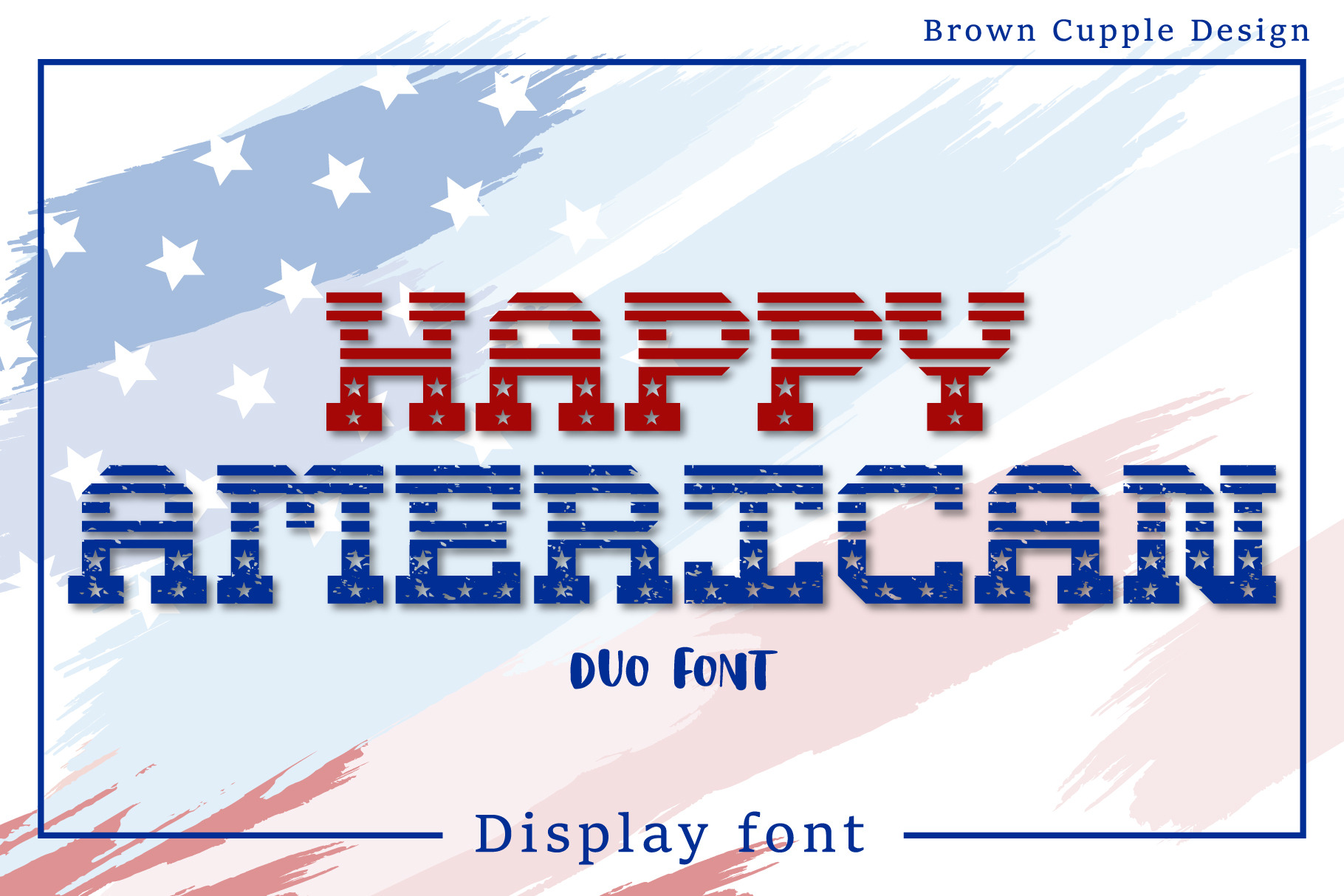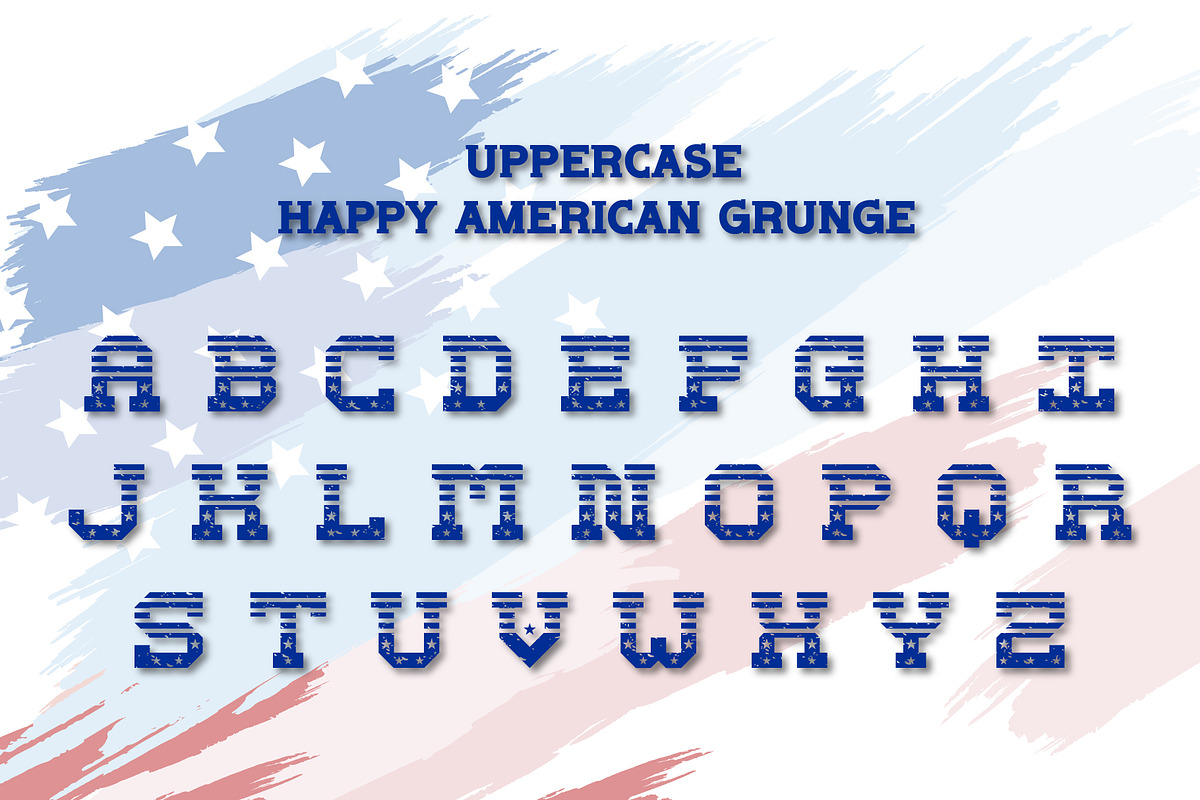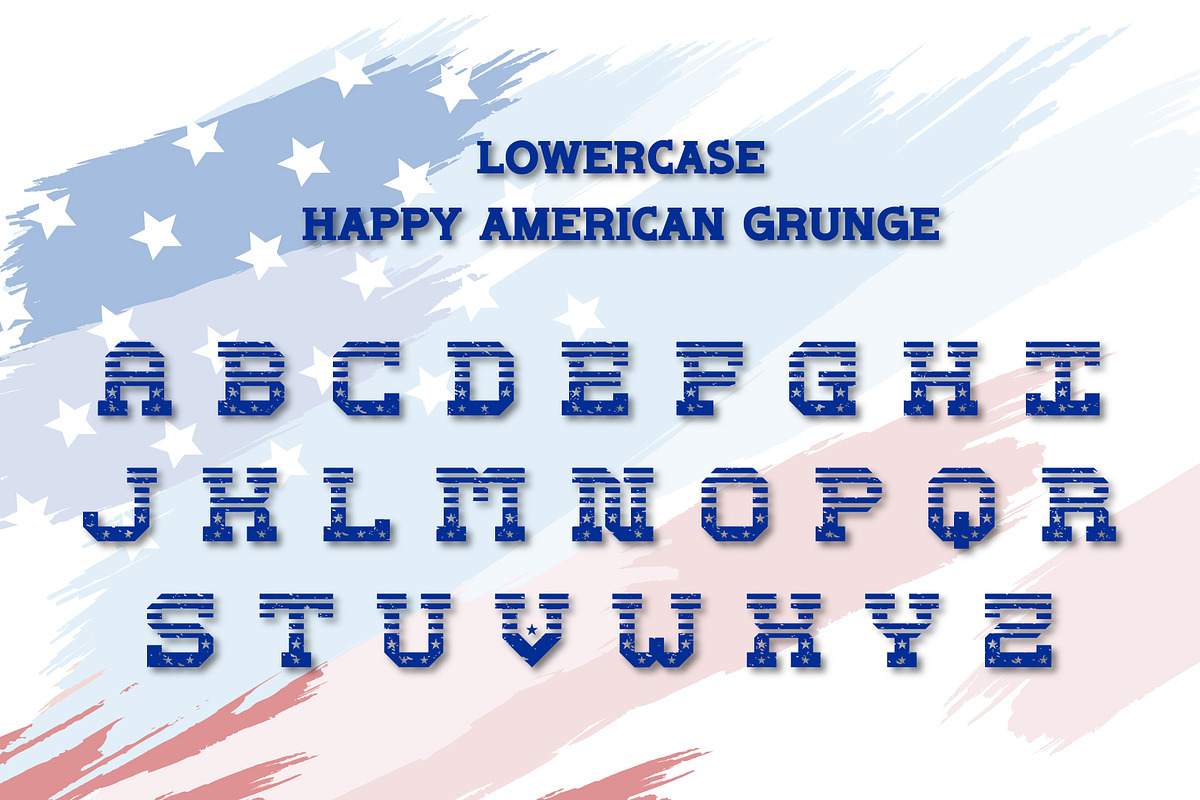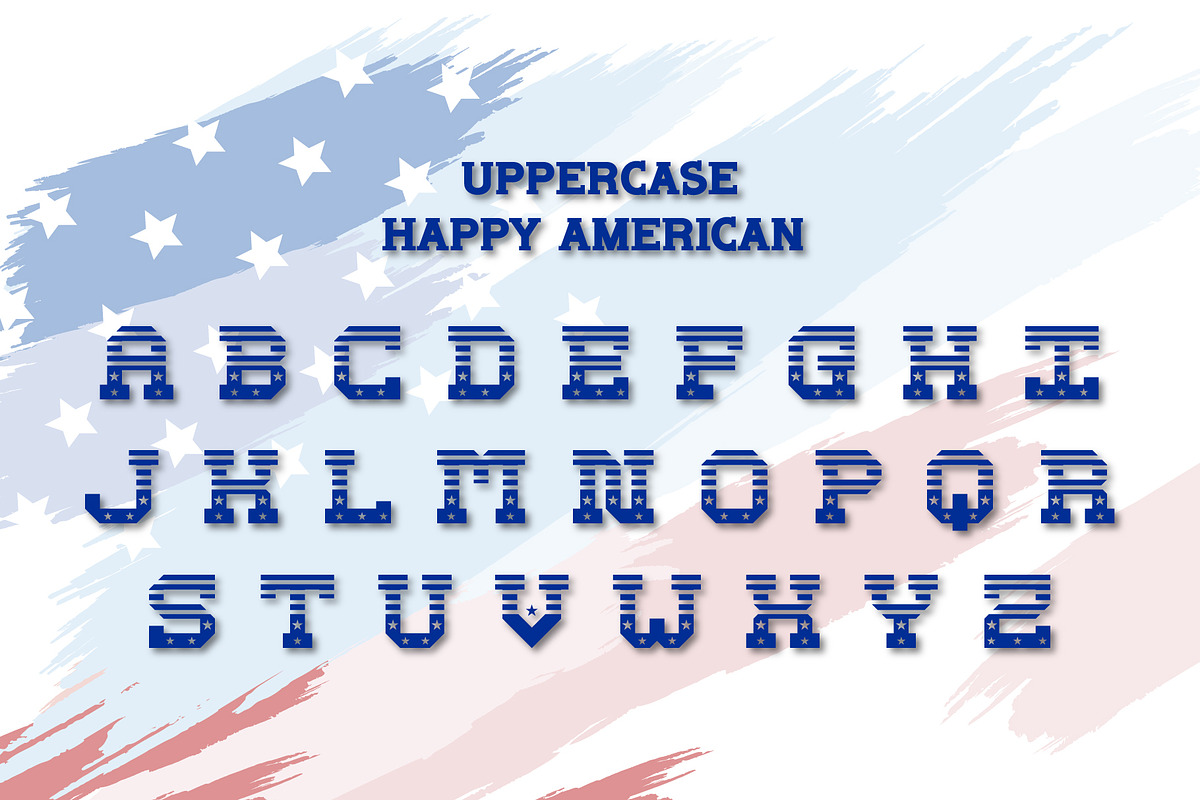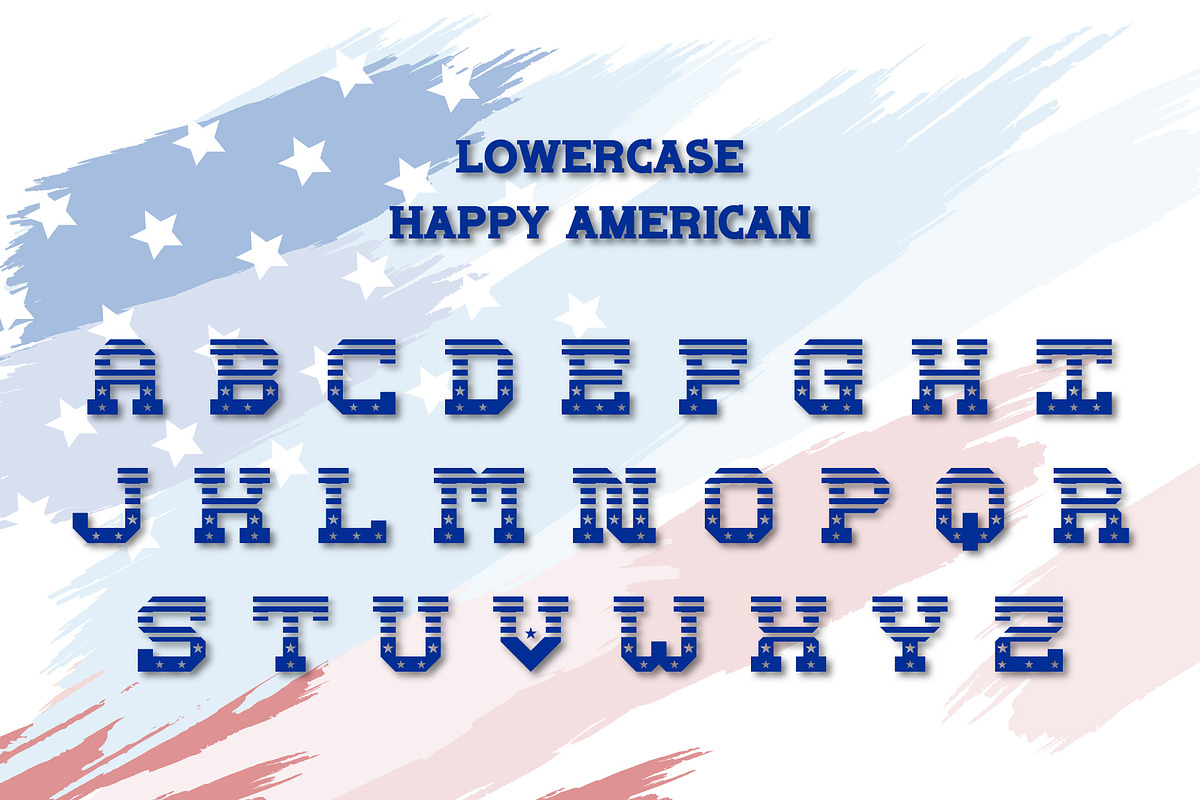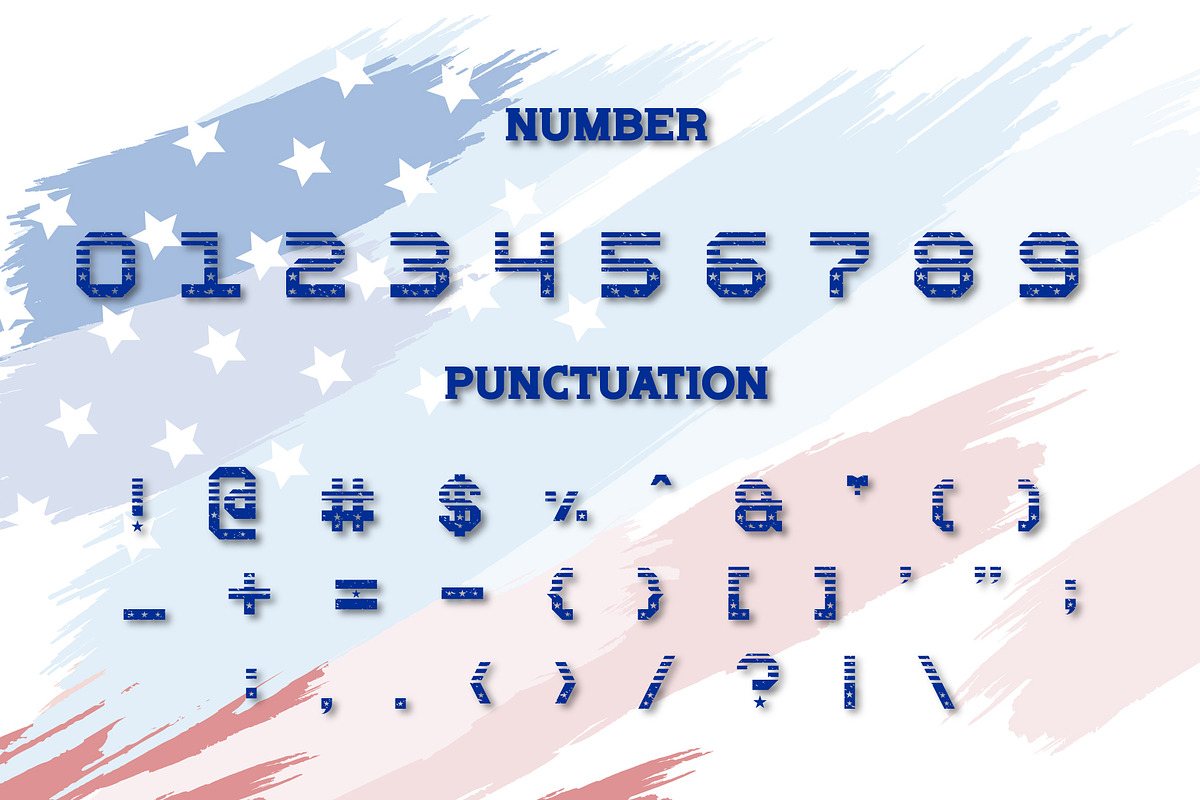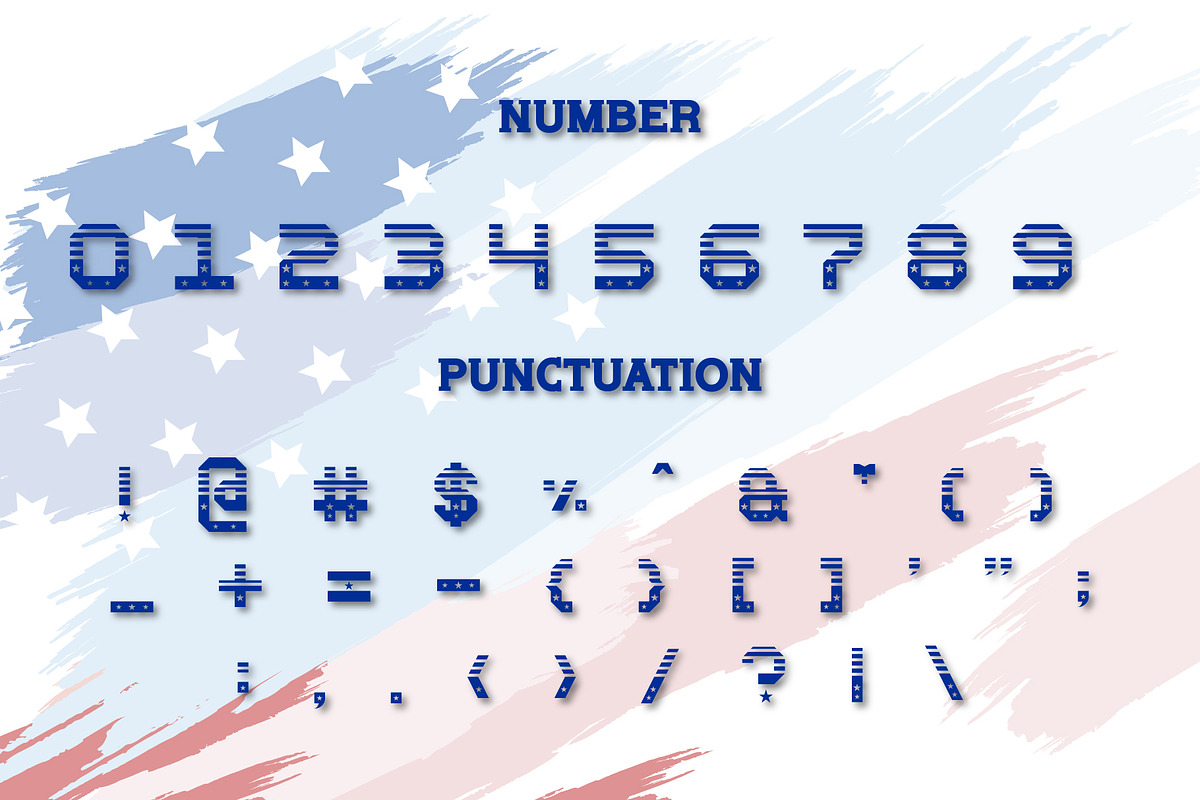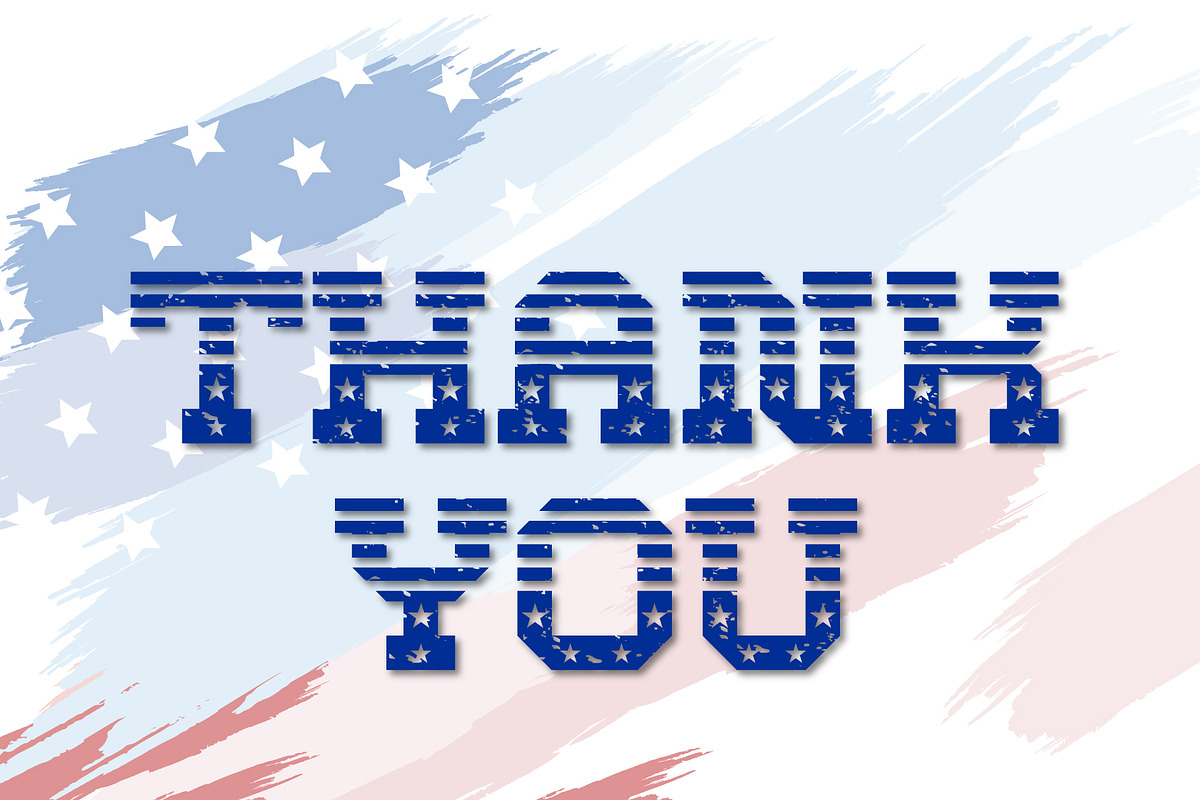
Happy American - Decorative Font
Happy American is a bold, incredibly cool, and assertive decorative font. You can use it for various projects, such as blog posts, logos, branding, ads, invitations, greeting cards, planners, photo albums, decorations, and much more. Add it to any of your designs, and enjoy the results!